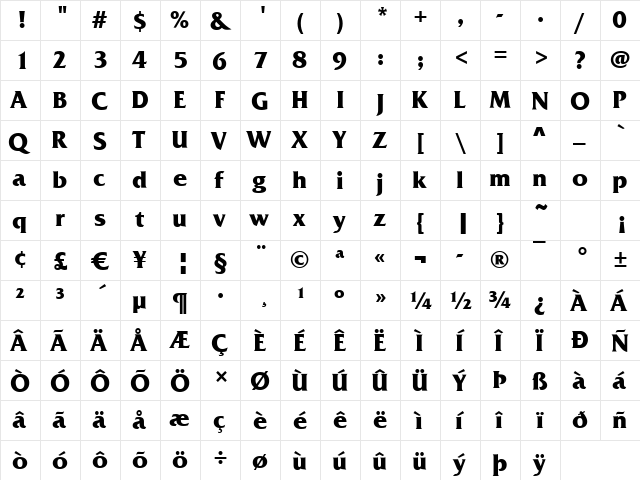
Fremont Bold
Design Context for Fremont Typeface
Fremont takes a measured approach to typography — its balanced proportions and neutral character make it a reliable workhorse for both digital and print work. Its bold stroke weight gives it real presence on the page.